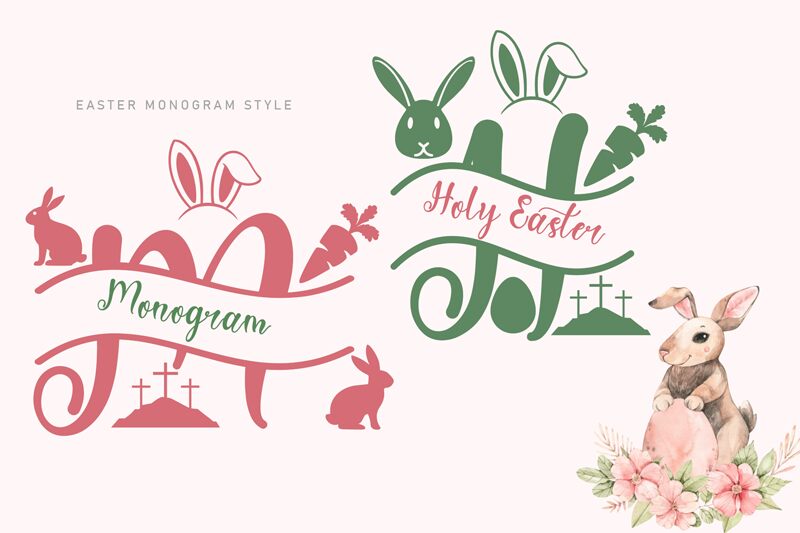
Holy Easter font family by Yoga Letter includes 2 font styles and is a free font to use in your personal design projects & ideas. Share a cheerful Easter wish with a greeting card where the font takes center stage or create a warm invitation card and integrate holy elements to both sides. Holy Easter features a set of elegant characters that are ideal for holiday use but are not limited to this idea.
Get creative this season & come up with cool artwork for your blog or website; share fun Easter trivia and fun facts, and even decorate a themed newsletter.